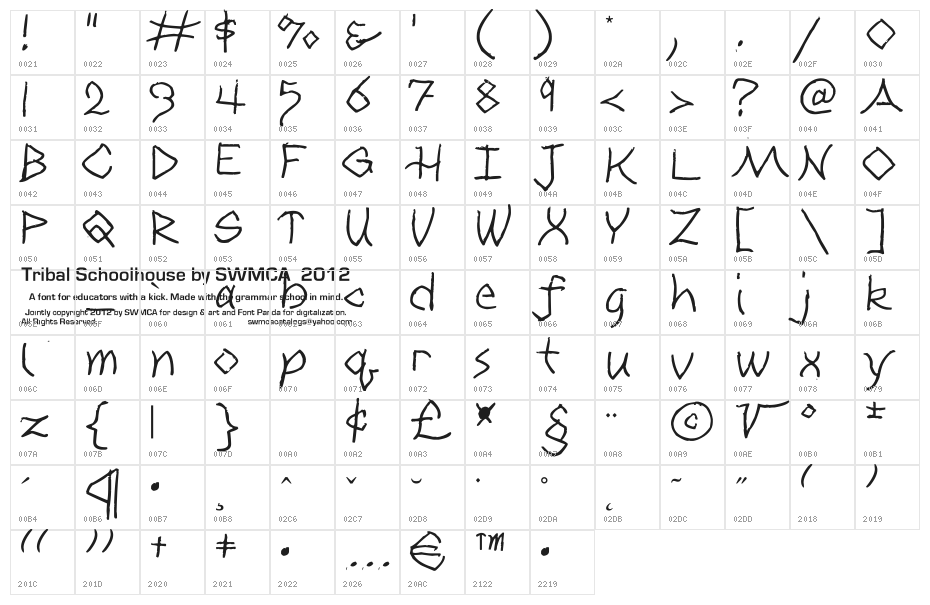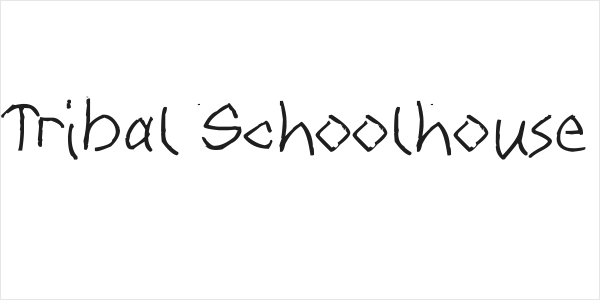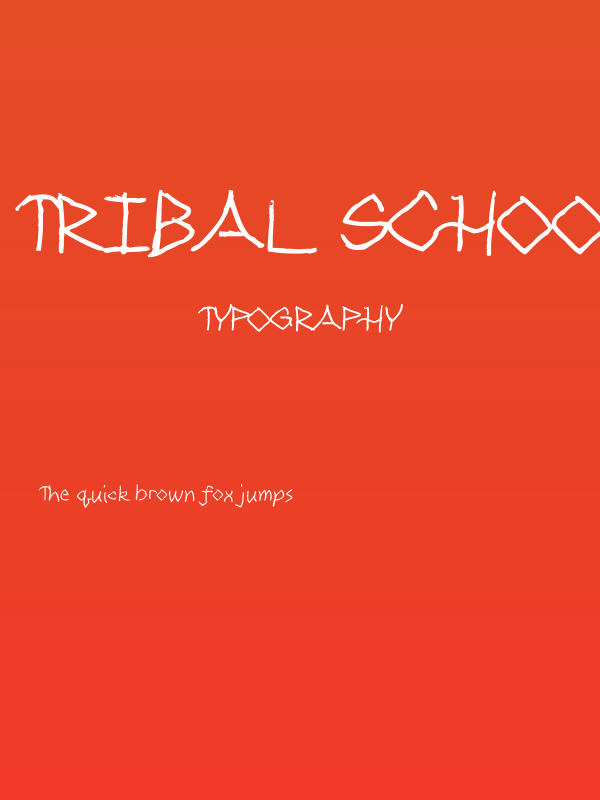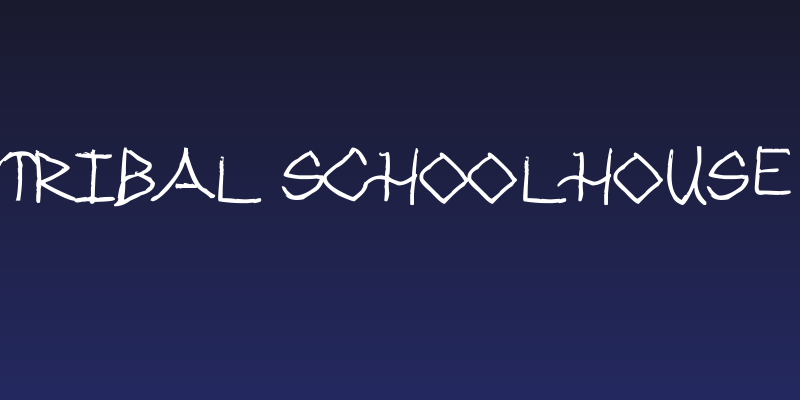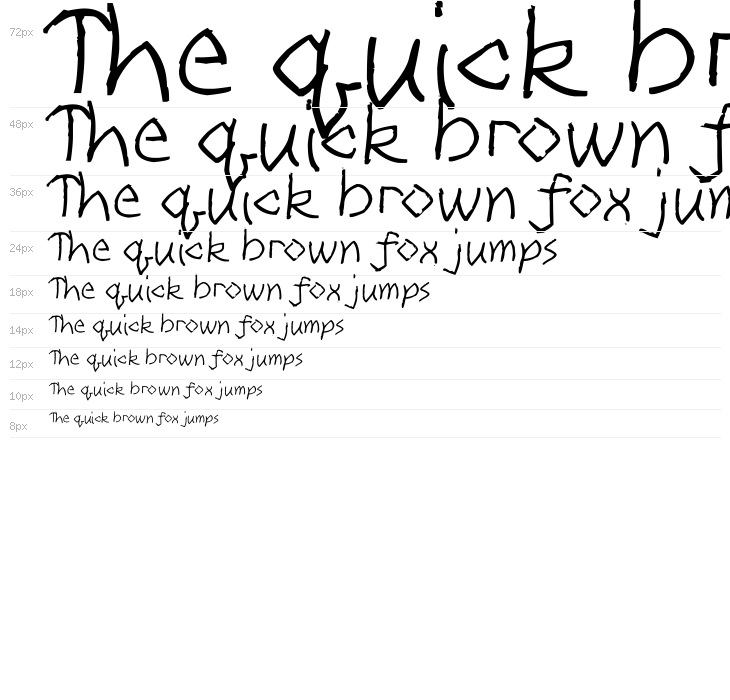
Tribal Schoolhouse Font
Tribal Schoolhouse Description
This font features a distinctive, hand-drawn style that evokes a sense of tribal art combined with a playful schoolhouse aesthetic. The characters are irregular and slightly rough, giving an organic and authentic feel. The uppercase letters are bold and angular, while the lowercase letters maintain a consistent flow with a slightly whimsical touch. Numbers and special characters follow the same hand-crafted appearance, adding to the overall unique character of the font. The strokes are uneven, contributing to a dynamic and lively appearance, making it suitable for creative and informal designs.
| Use Case | Headlines, Logos, Artistic Designs |
| Proposed Projects | Ideal for projects that require a creative and informal touch, such as children's books, educational materials, tribal-themed designs, and artistic posters. |